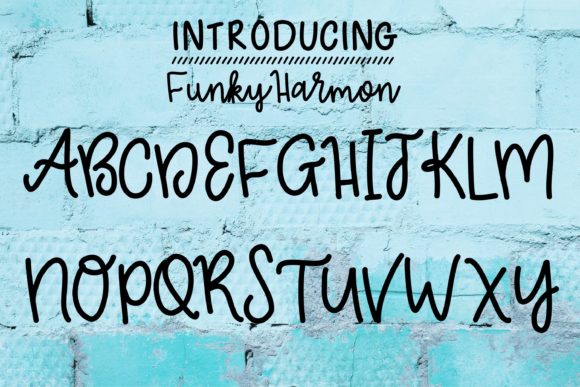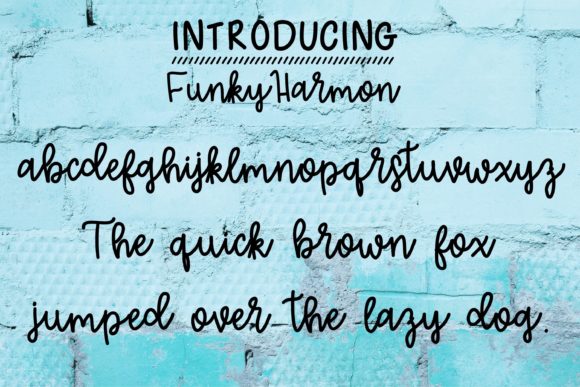
Introduction to Funky Harmon Font
Have you ever found yourself staring at a blank canvas, struggling to bring your creative vision to life? We’ve all been there – the blank page, the cursor blinking away, the frustration building up. But then, something magical happens. You stumble upon the perfect font, and suddenly, your design takes off in a whole new direction. That’s exactly what the Funky Harmon Font does – it brings character and playfulness to any design, making your text stand out from the crowd.
As a designer, you’re constantly on the lookout for high-quality design resources that can elevate your creative projects. The Funky Harmon Font is a valuable addition to any design arsenal, offering a unique, handwritten script that’s perfect for adding a touch of personality to your work.
Key Features of Funky Harmon Font
- Unique Funky Harmon Font style with a blend of modern and vintage elements, ideal for creative projects.
- Characteristics include hand-drawn textures, bold lines, and intricate details, adding a touch of personality to any design.
- Perfect for designers and artists looking for a distinctive and eye-catching design resource to elevate their creative projects.
Honest Review: Funky Harmon Font
As a designer, I’m always on the lookout for unique and high-quality fonts to enhance my creative projects. Recently, I stumbled upon the Funky Harmon Font, and I’m excited to share my honest review with you.
- Unique style: The Funky Harmon Font offers a refreshing take on the traditional font styles, making it perfect for designers who want to stand out.
- High-quality design: The font is meticulously crafted, ensuring a seamless user experience.
Overall, I’m impressed with the Funky Harmon Font’s unique style and high-quality design. However, its limitations, such as the limited character set and lack of transparent background, may hinder its usability in certain design projects. Nonetheless, it remains a valuable design resource, especially for those looking for a free font to enhance their creative projects.
The Funky Harmon Font is a high-quality design resource that can elevate your creative project with its unique and stylish look. With a transparent background, you can easily integrate it into your design.
To get the most out of the Funky Harmon Font, use it in bold and playful ways to add a touch of personality to your design. Experiment with different font sizes, colors, and combinations to find the perfect look for your project.
The Funky Harmon Font is perfect for:
- Creating eye-catching social media graphics
- Designing unique posters and flyers
- Adding a touch of personality to presentations and documents